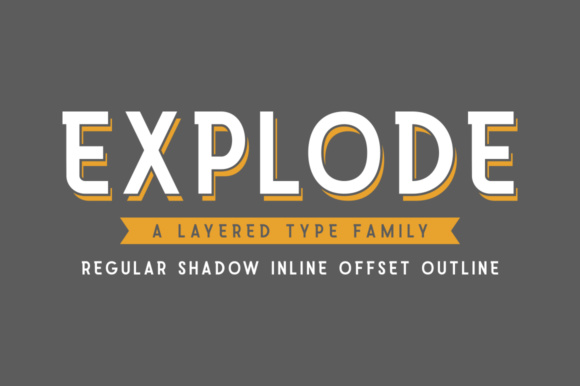
Introducing Explode Family Font, a layered type family that's sure to make your designs pop! With four distinct weights, Explode is the perfect choice for adding a touch of personality to your branding, labels, greeting cards, displays, headers, and more.
Its simple, easy, and playful style is sure to capture the attention of your audience. Whether you're a seasoned designer or just starting out, Explode is the perfect font family to add to your creative arsenal.
**Here are just a few reasons why you'll love Explode:**
* **Unleash Your Creativity:** Explode's versatile design allows you to create stunning visuals that are sure to leave a lasting impression.
* **Make a Statement:** With its bold and eye-catching style, Explode is the perfect choice for making a statement with your designs.
* **Add a Touch of Playfulness:** Explode's playful nature is sure to add a touch of fun and personality to your work.
* **Perfect for Branding:** Explode is the ideal font family for creating a strong and cohesive brand identity.
* **Endless Possibilities:** Whether you're designing logos, posters, flyers, or anything in between, Explode is the perfect choice for adding a touch of style and sophistication.